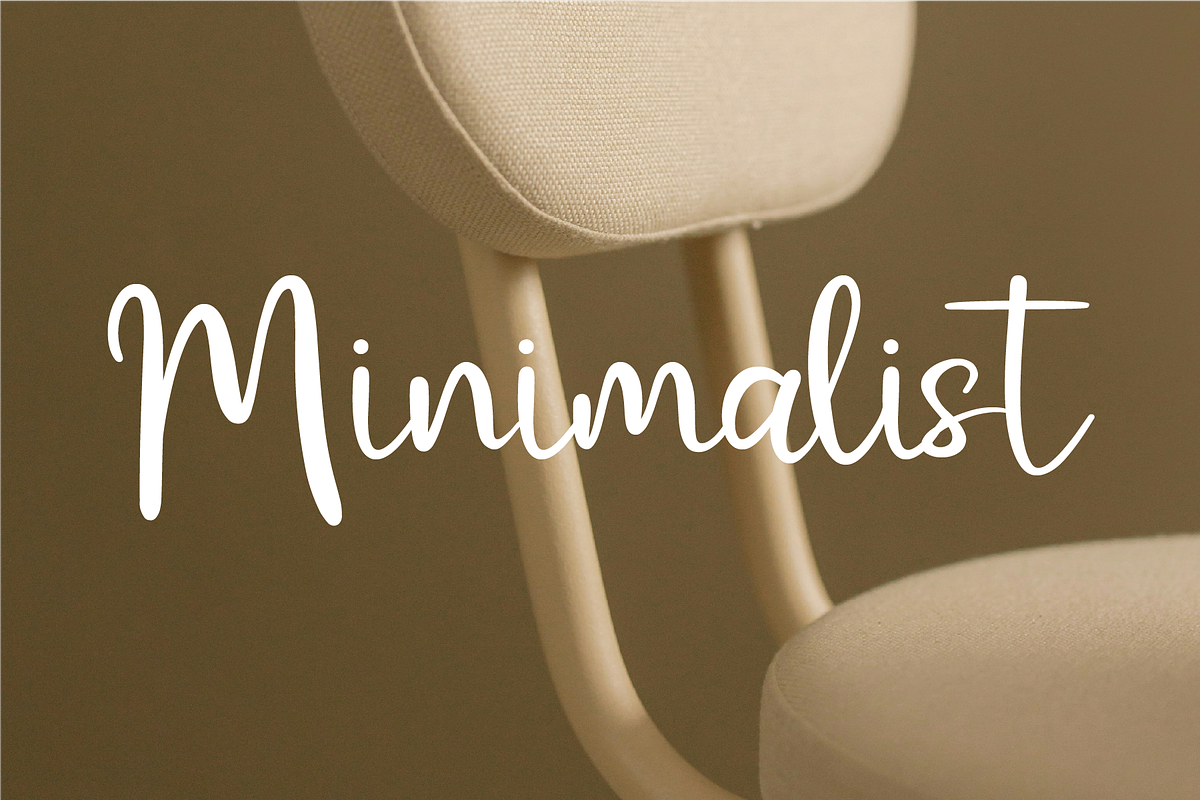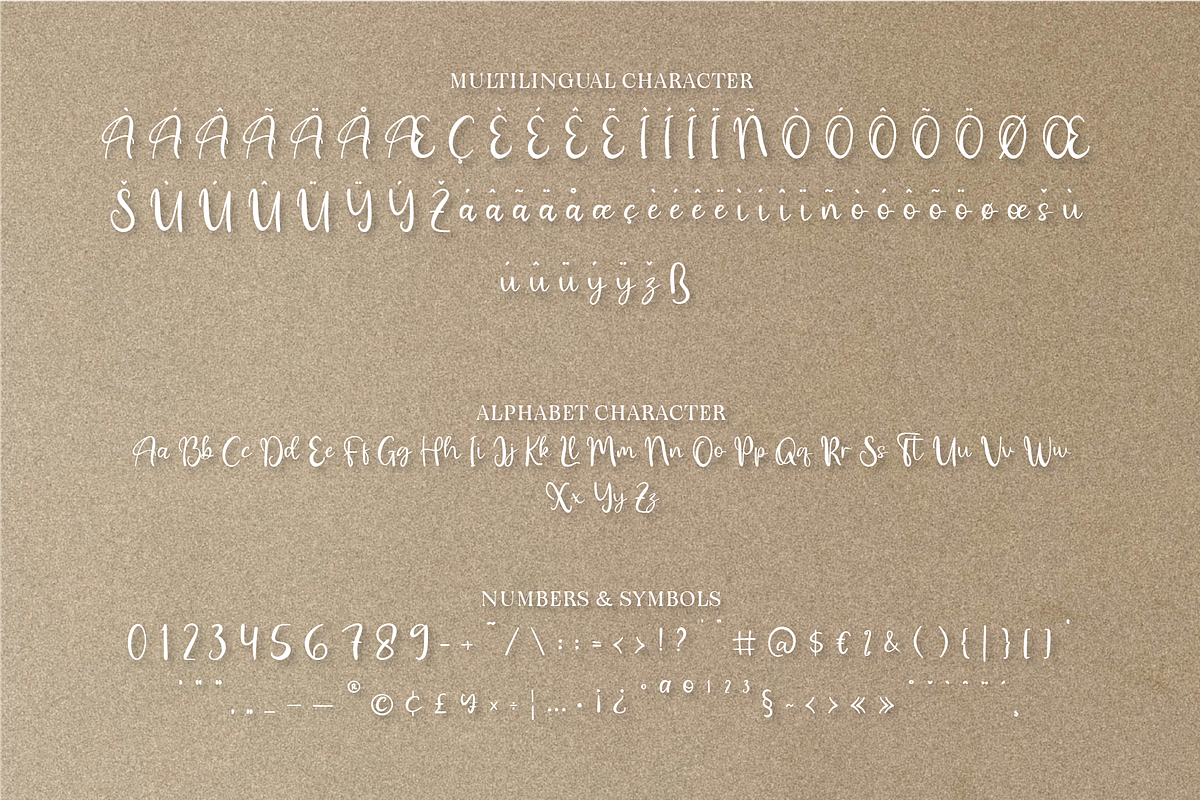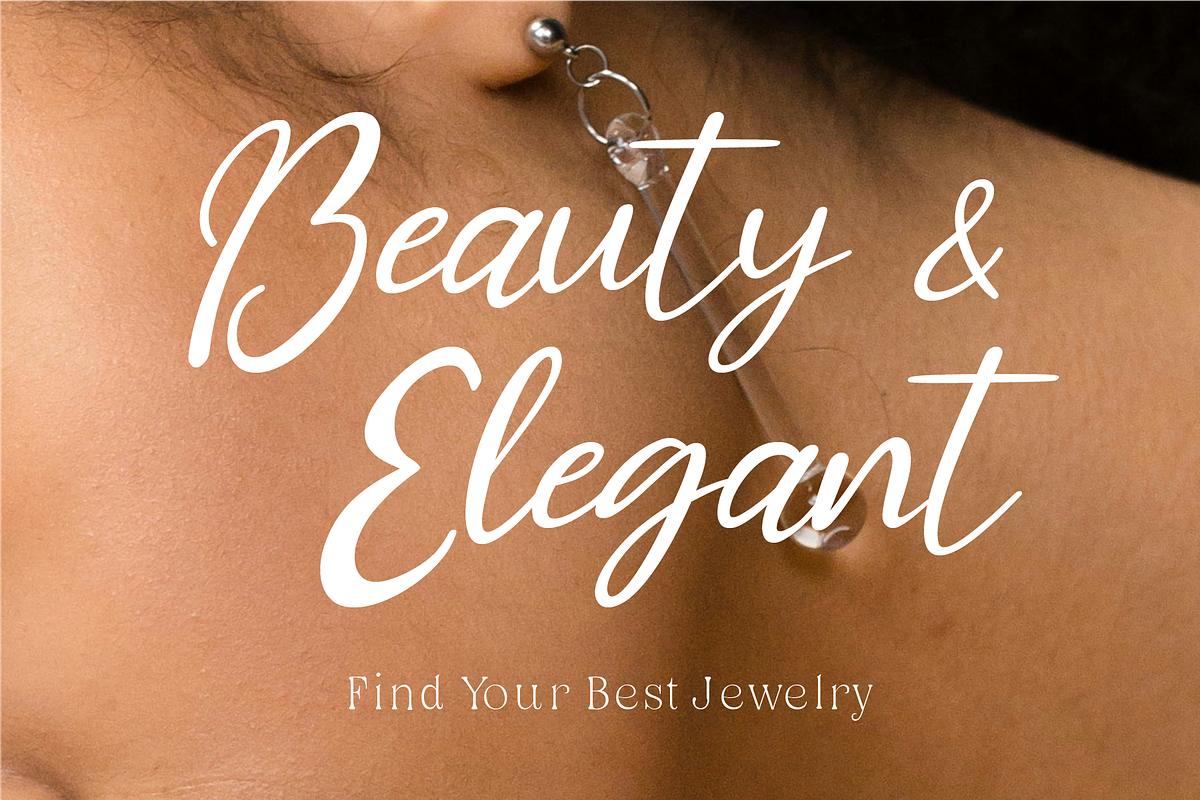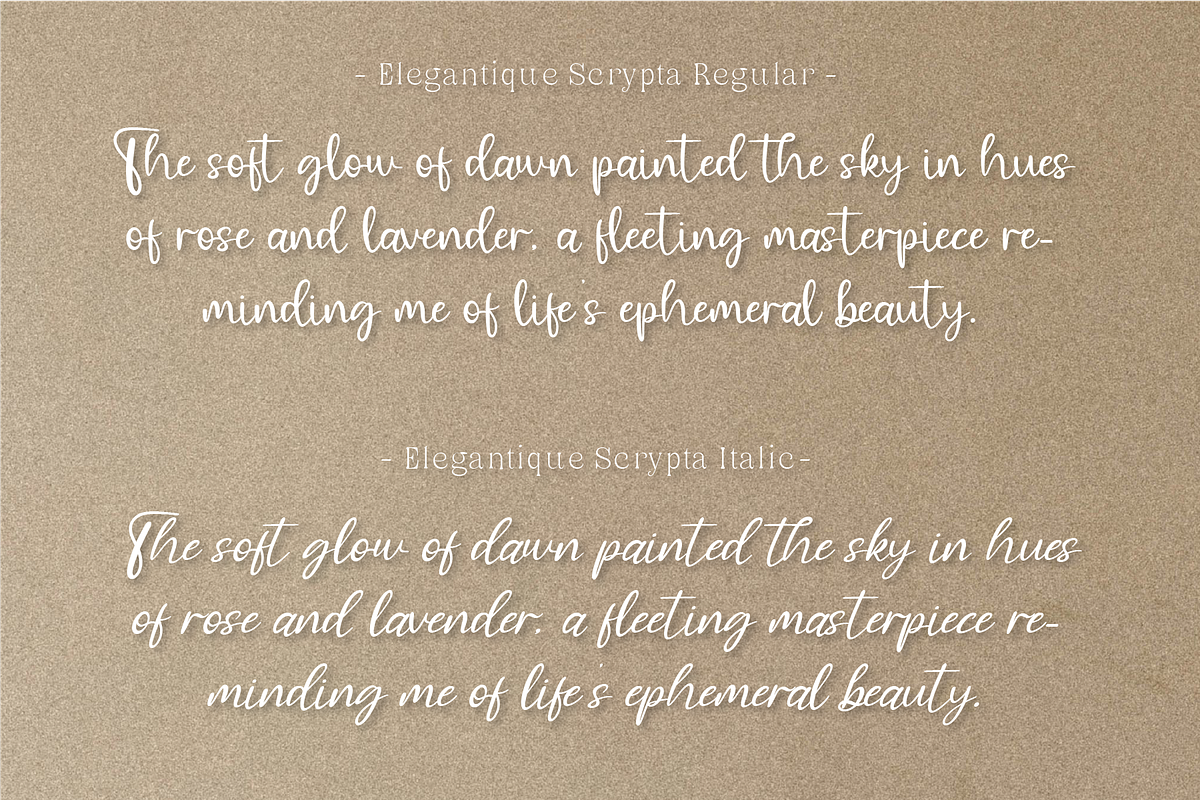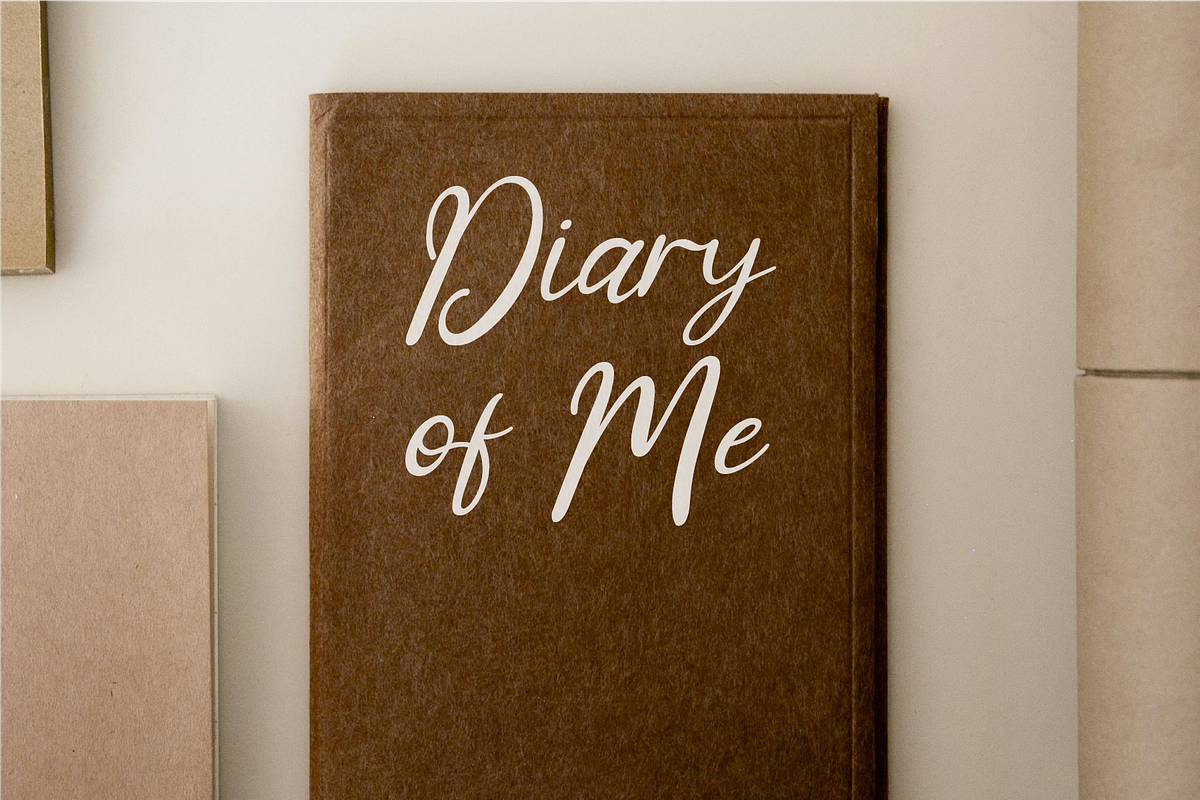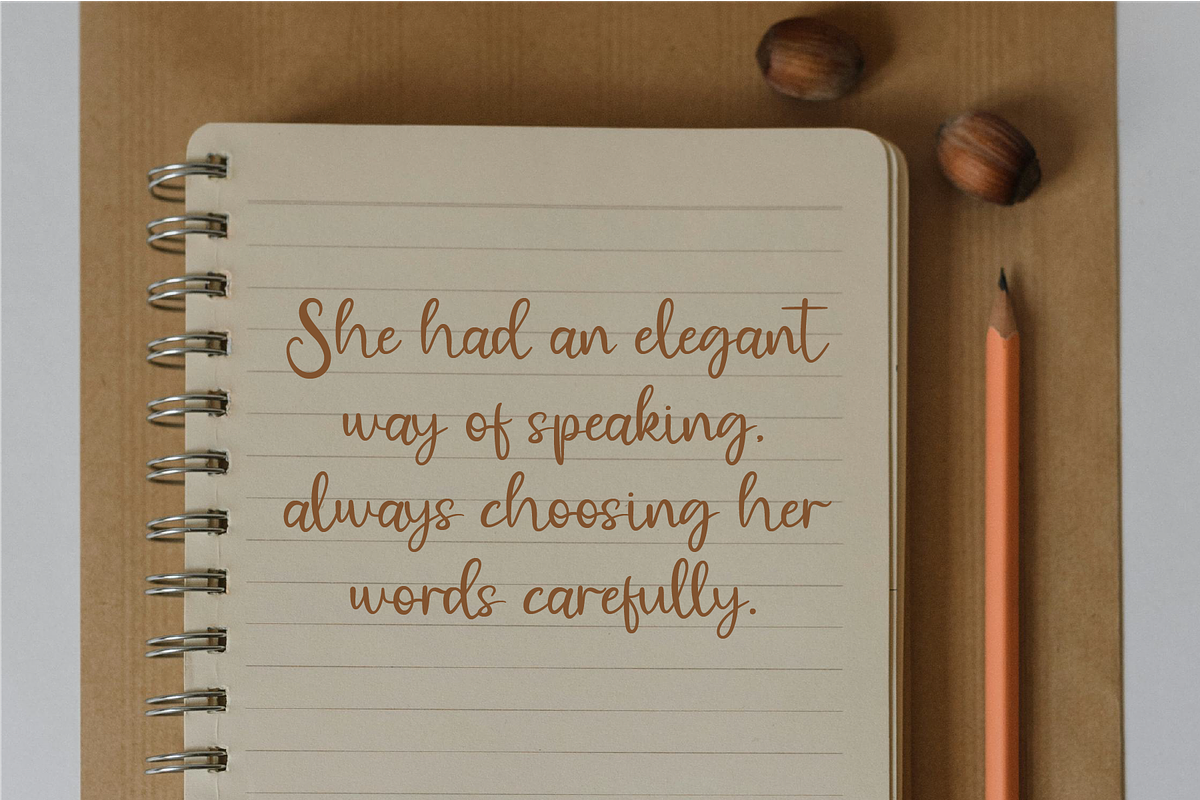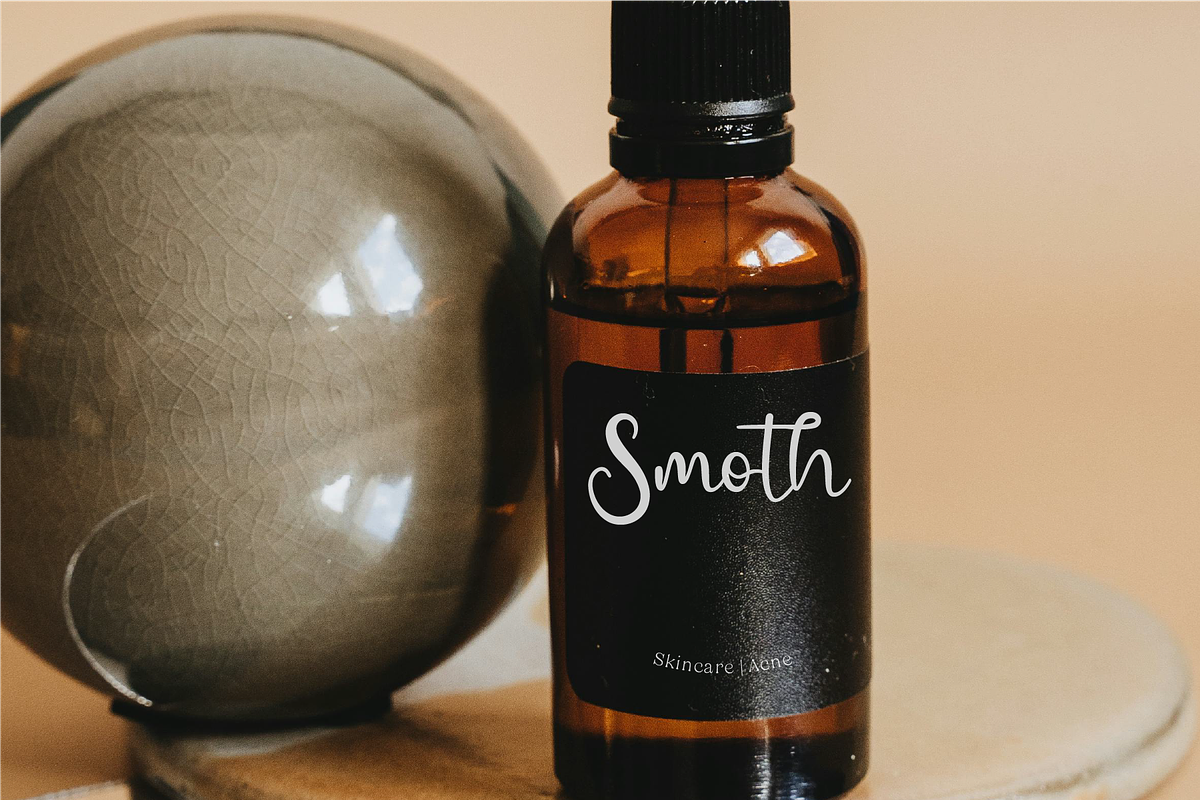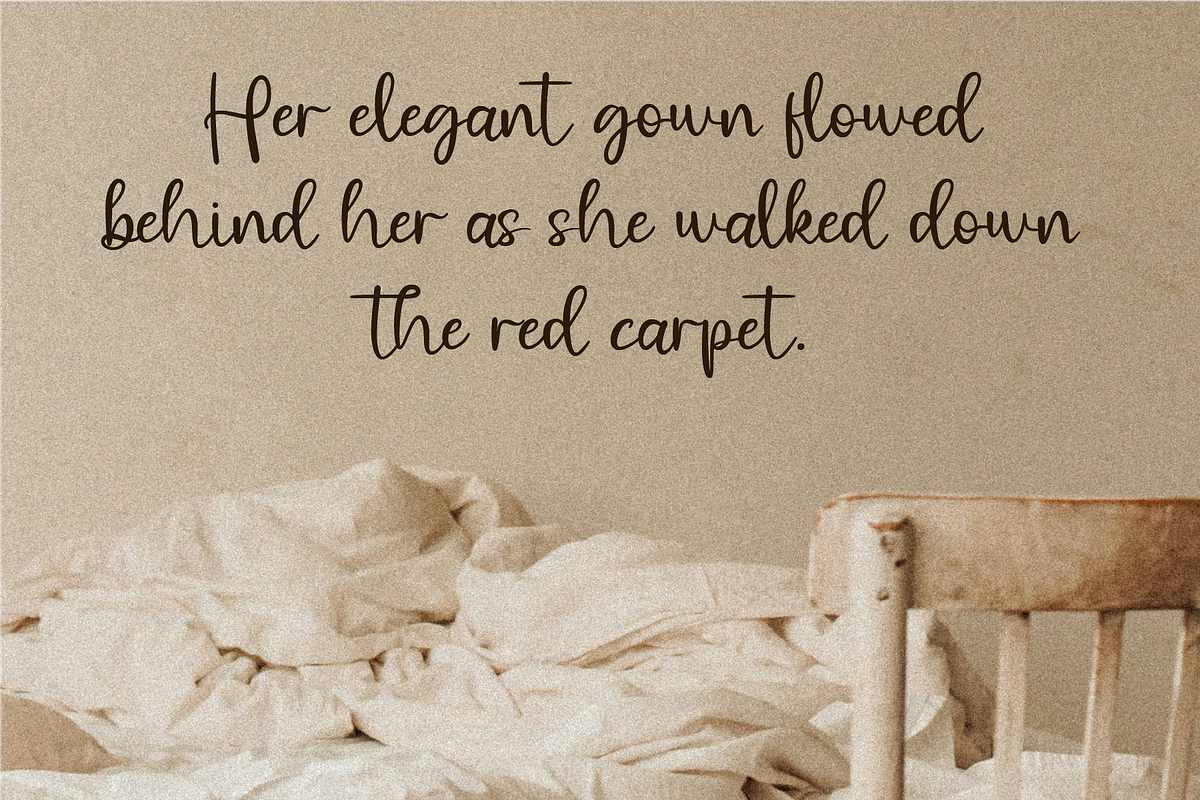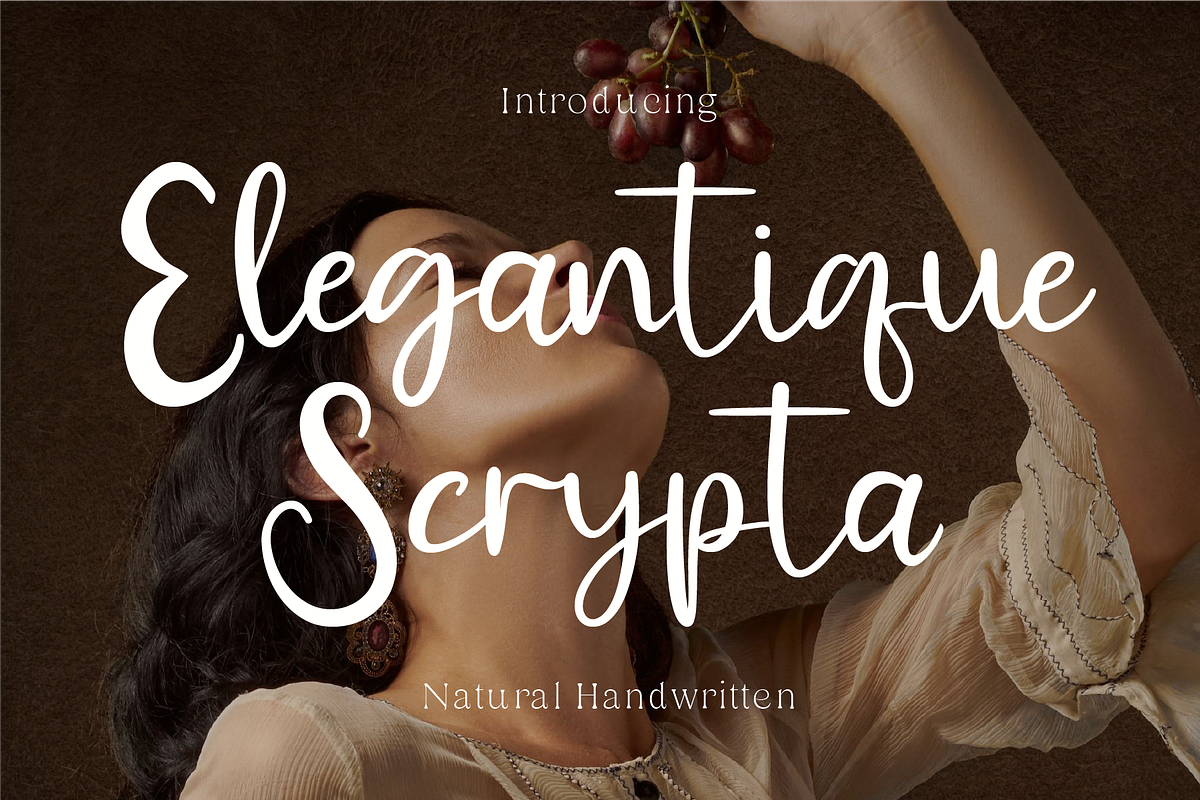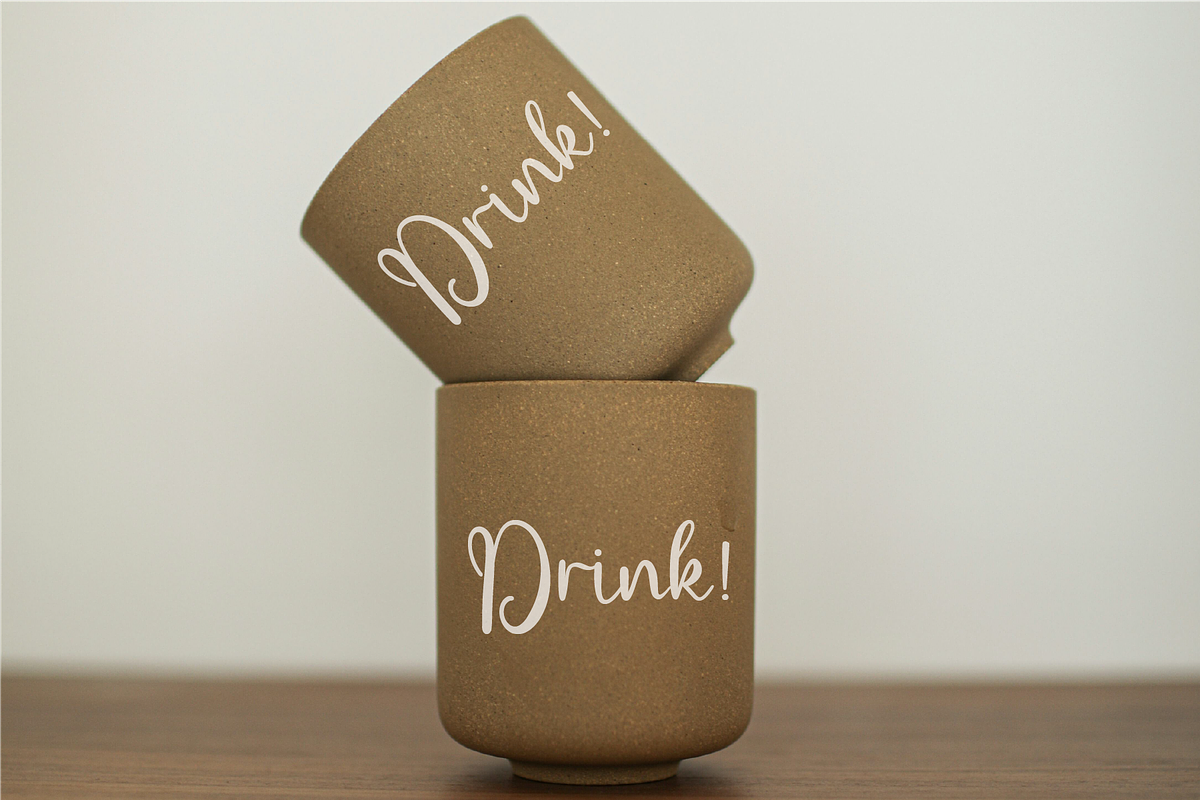
Elegantique Scrypta
Elegantique Scrypta – A Timeless & Natural Handwritten Script Step into the world of elegance with Elegantique Scrypta, a refined handwritten script that blends grace, sophistication, and natural beauty. With its fluid strokes, delicate curves, and organic flow, this font captures the charm of traditional calligraphy while remaining effortlessly modern. Designed for those who appreciate luxury and artistry, Elegantique Scrypta is the perfect choice for wedding invitations, branding, editorial design, fashion labels, and upscale packaging. The well-balanced letterforms and stylish flourishes create a sense of exclusivity, making every word feel personal and exquisite.
Why Choose Elegantique Scrypta?
✔ Elegance in Every Stroke: Inspired by classic calligraphy with a modern touch. ✔ Naturally Handwritten: Organic and authentic, as if written by hand with care. ✔ Versatile & Stylish: Perfect for luxury branding, invitations, logos, and social media. ✔ Refined & Readable: Designed for beauty and legibility in every application. Elevate your designs with Elegantique Scrypta, where every letter tells a story of sophistication. Download now and add timeless beauty to your creations! ✨
- Standard Character A-Z, a-z, 0-9, Punctuation & symbols
- Regular and Italic